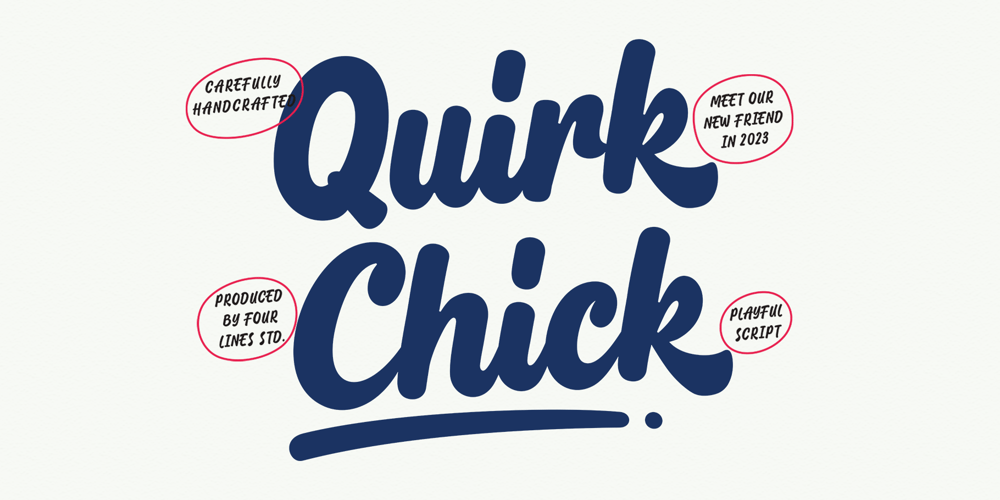
Quirk Chick Font Family was designed by Zain Fahroni and published by Four Lines Std. Quirk Chick contains 1 styles and family package options. Designed with graphic designers in mind, Quirk Chick font offers versatility and flexibility making it perfect for logos, branding, invitations, packaging, and so much more. Let your imagination run wild as you create eye-catching designs that leave a lasting impression.